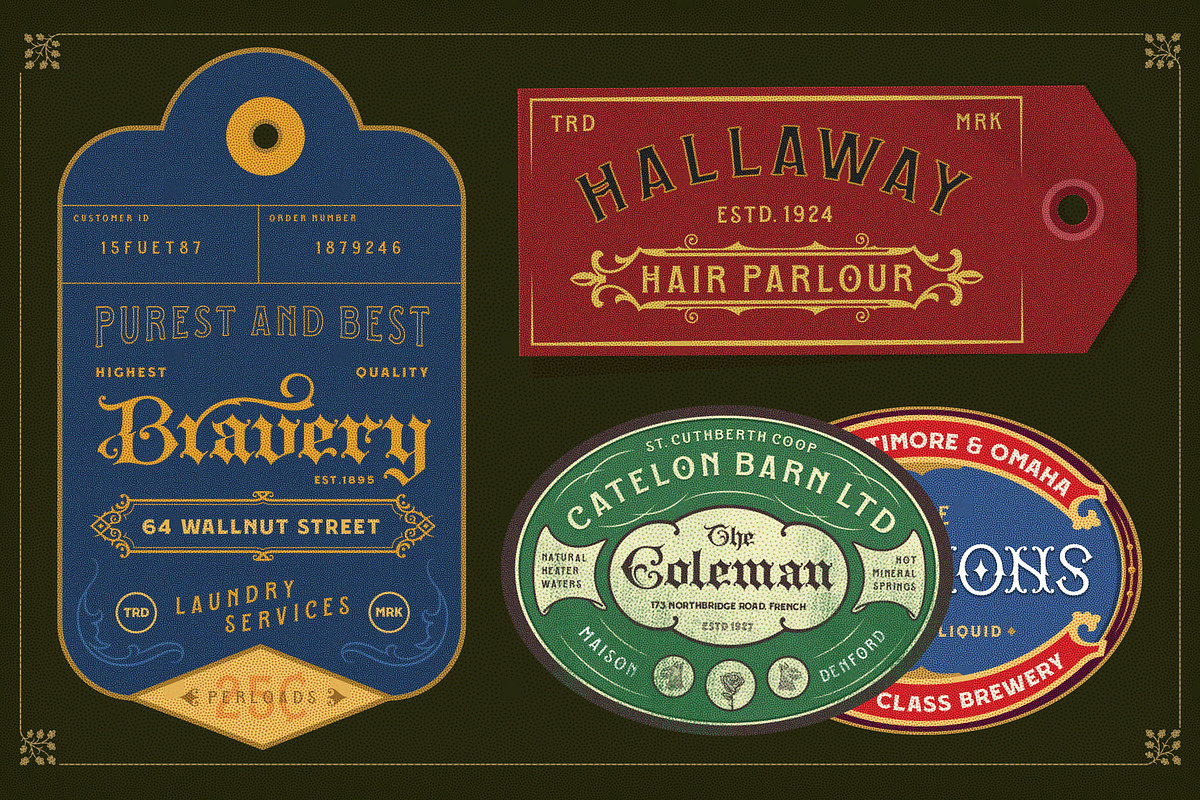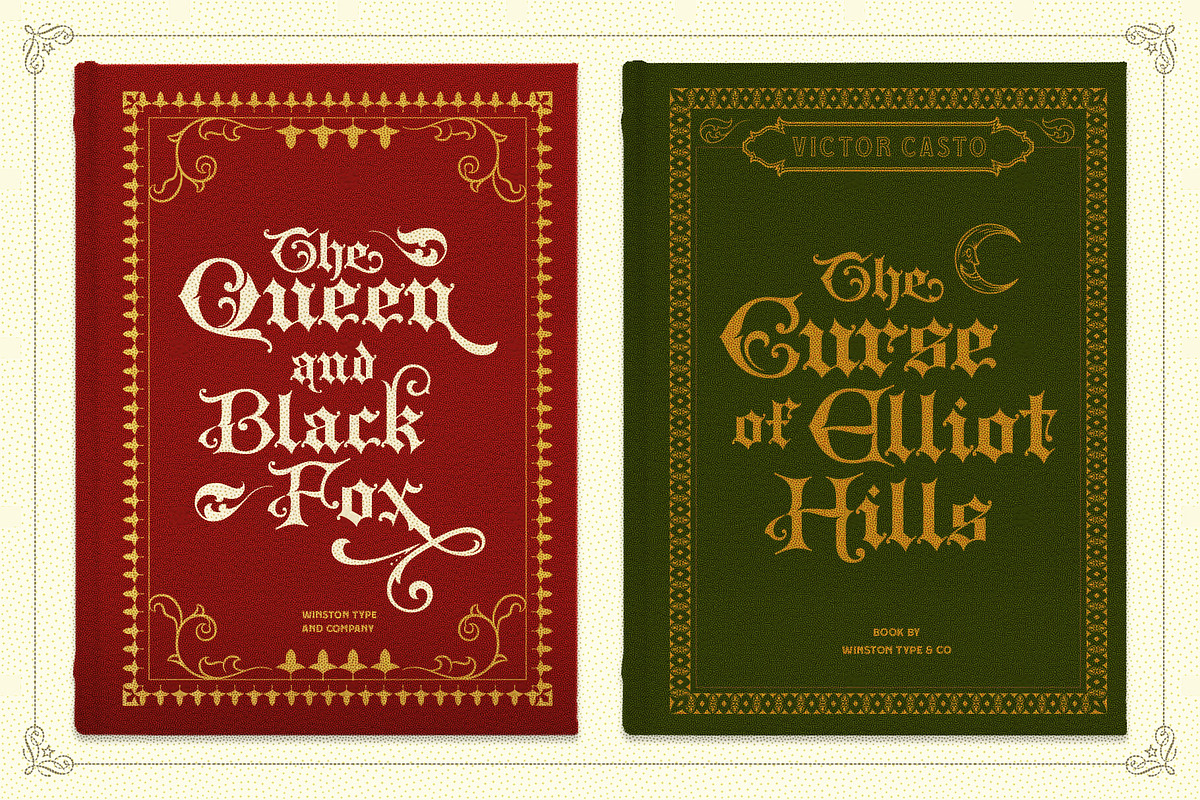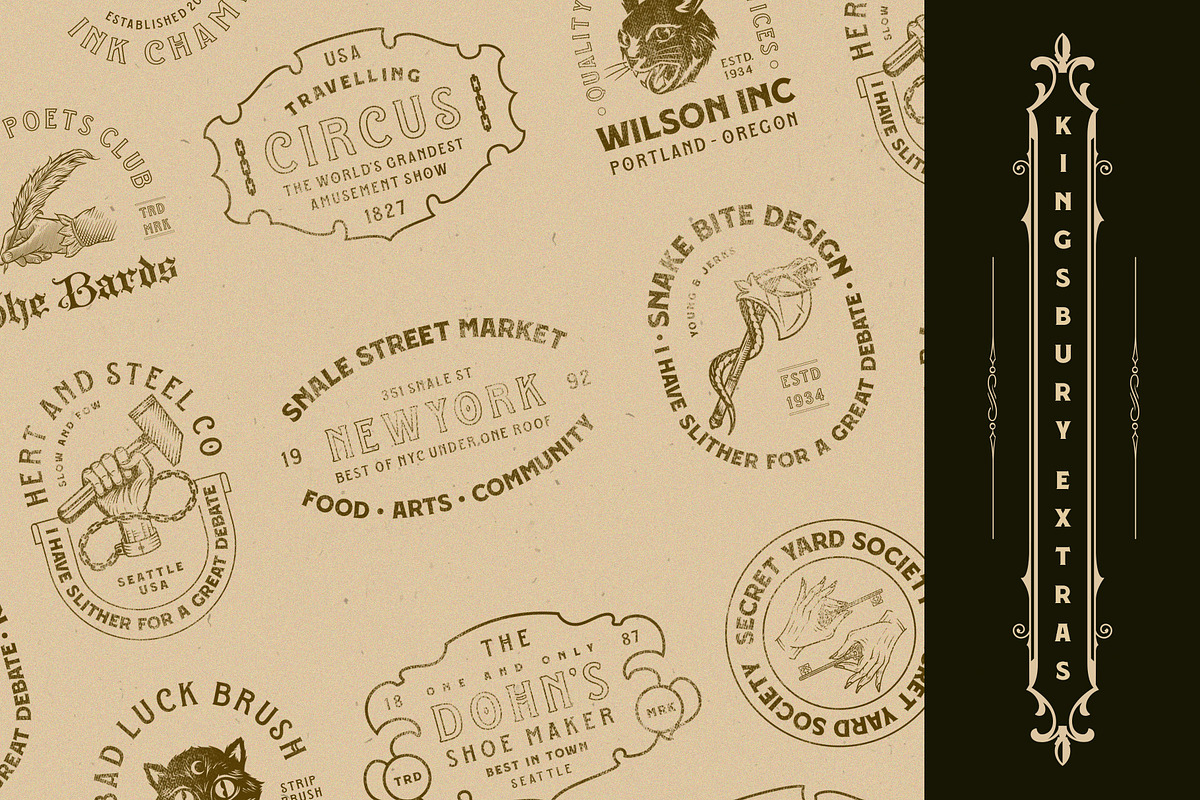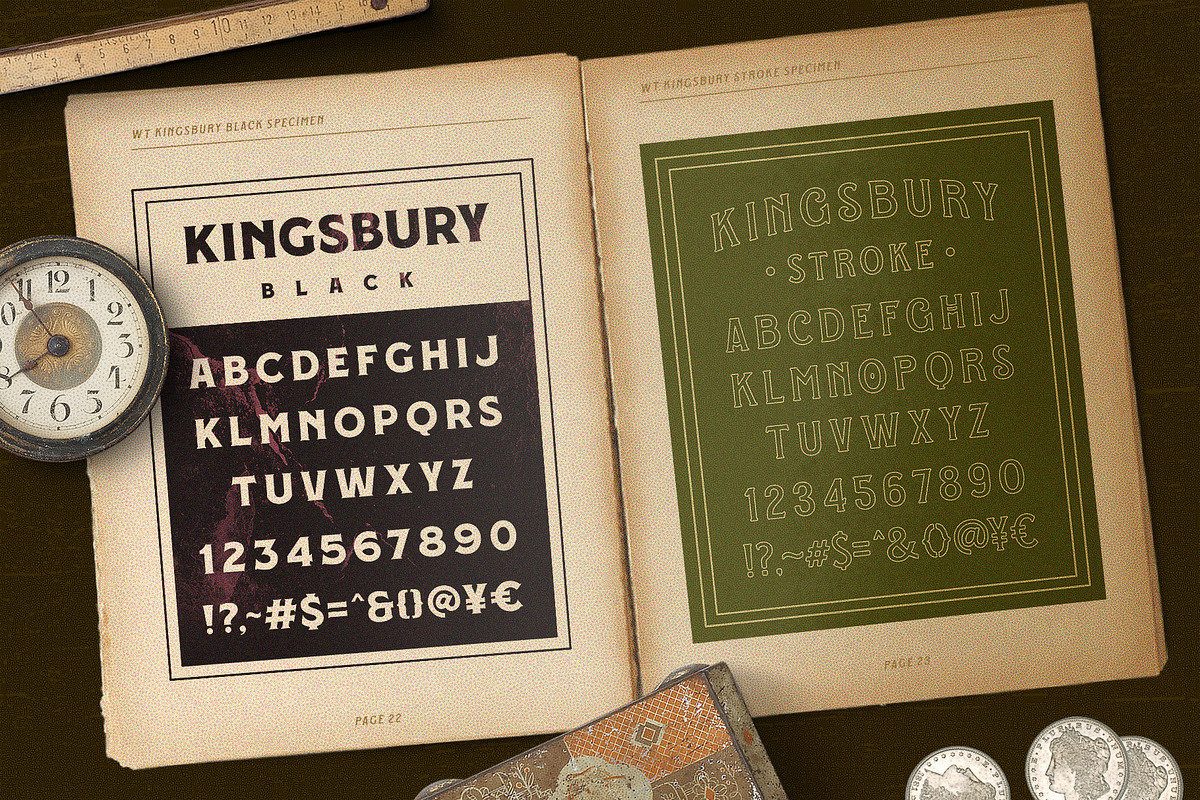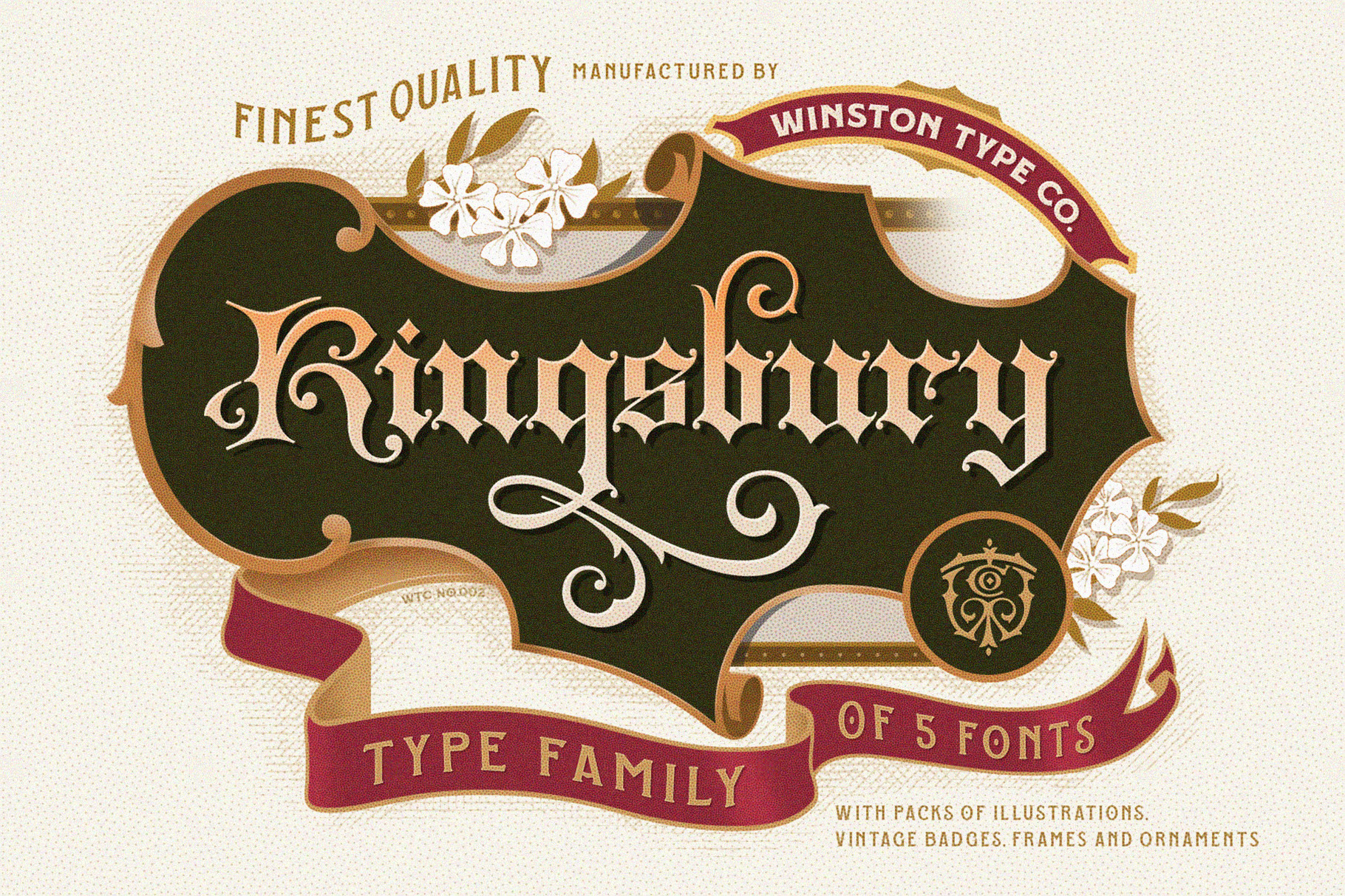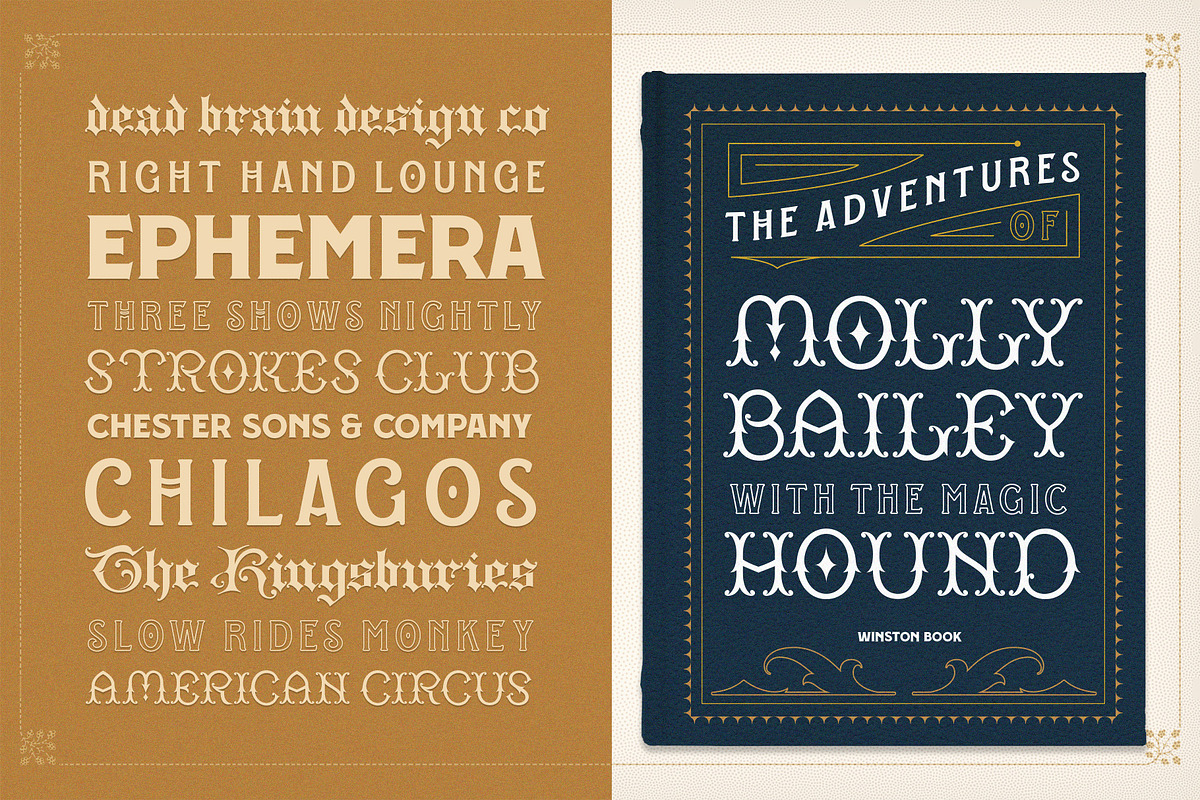
WT Kingsbury Font Bundle
WT Kingsbury is an exclusive collection of type family that inspired from the Old English era that evolved in Western Europe from the middle of the twelfth century. The main font, WT Kingsbury Gothic, is harmonized by Lombardic and Blackletter styles. Formed by its dramatic thin and thick strokes, with tons of character alternates and decorated with elaborate swirls of Victorian style.
WT Kingsbury presented the variety of unique typefaces, you can mix and match the pair(s) of gothic, fancy, serif, stroke or black. This family also equipped with georgeous design pack including illustrations, vintage badges, victorian frames, floral ornaments and premade badges that you can use for your project and allows you to create beautiful designs, headlines, posters, logo, badges, t-shirt and more. Kingsbury gothic & fancy also best to used for headings, logos, posters, certificate, labels and signs.
WT Kingsbury Type Family :
- WT Kingbury Gothic
- WT Kingbury Serif
- WT Kingbury Fancy
- WT Kingsbury Black
- WT Kingsbury Stroke